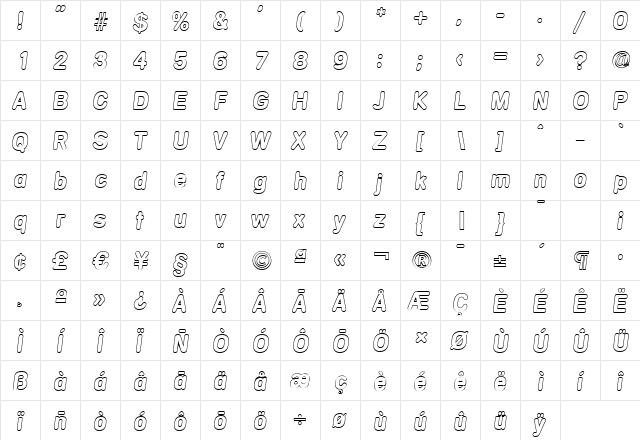
AndreasBeckerOutline BoldItalic Font Preview
Design Context for AndreasBeckerOutline Typeface
AndreasBeckerOutline brings ornamental detail and strong personality to headlines and identities, where visual impact matters more than quiet functionality. Its italic angle brings a sense of urgency and motion to the letterforms. The heavy weight commands attention and anchors typographic hierarchies.
Font Pairing: Pair with a clean neutral sans-serif for body copy to let AndreasBeckerOutline's character lead without overwhelming the composition.
Pro Tip: Treat AndreasBeckerOutline as the centrepiece of your typographic hierarchy. One strong heading set in a decorative face can carry an entire layout.